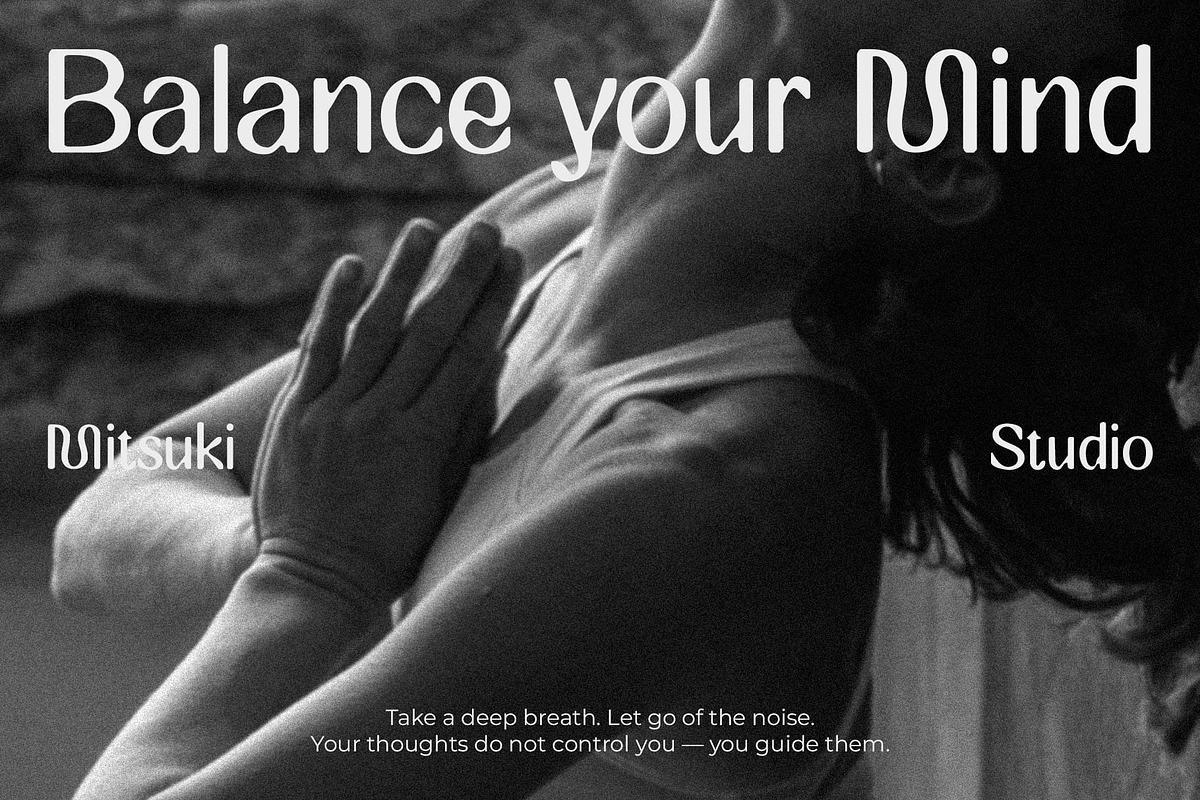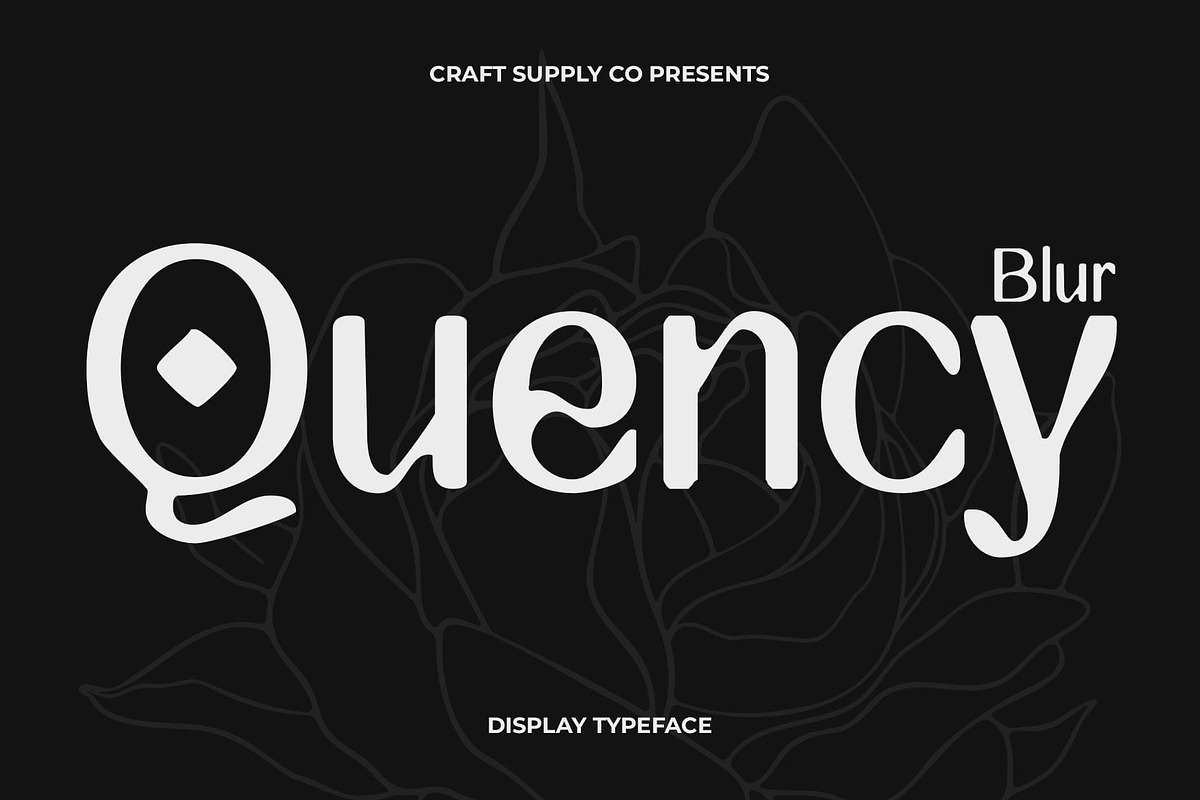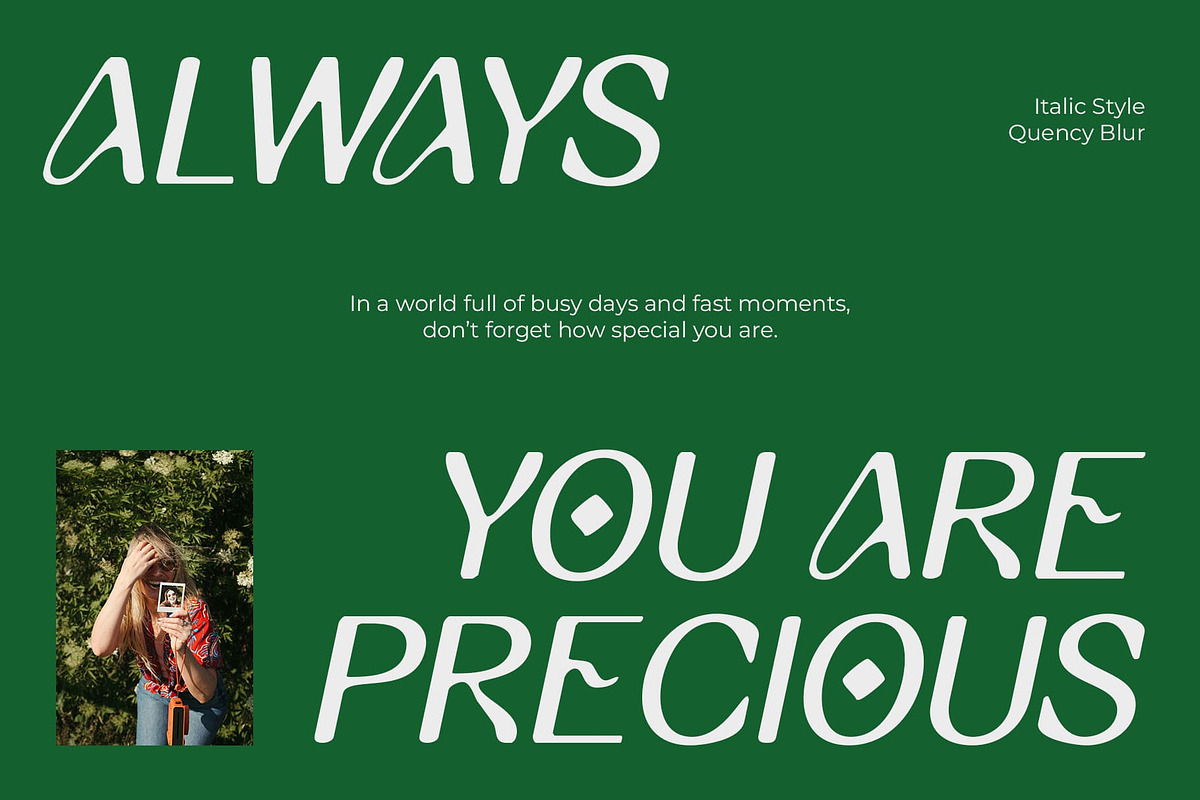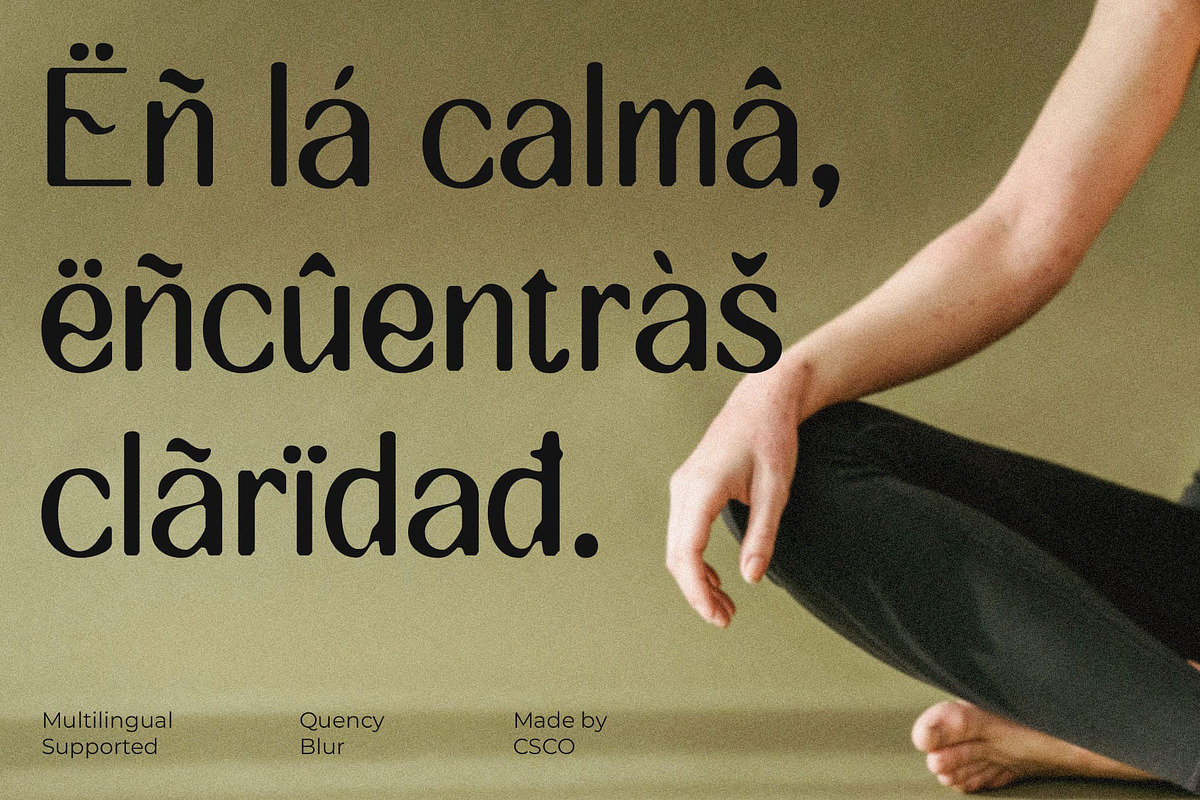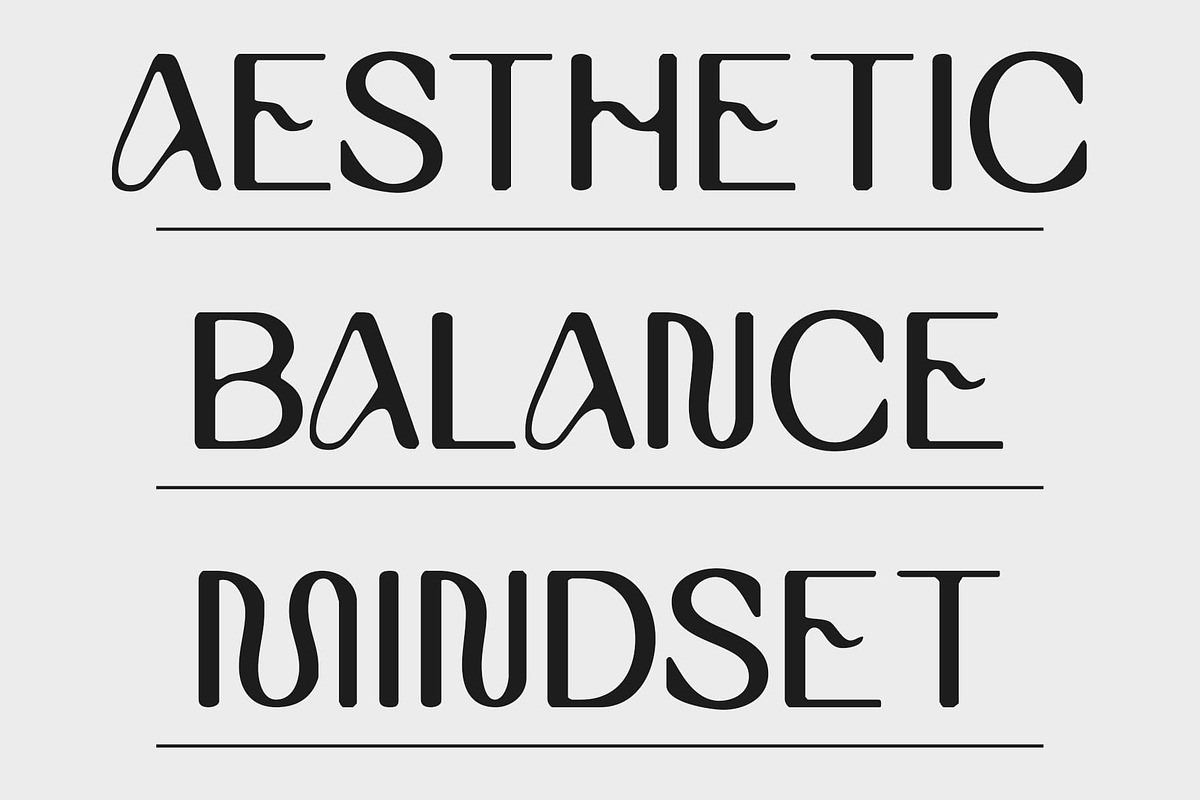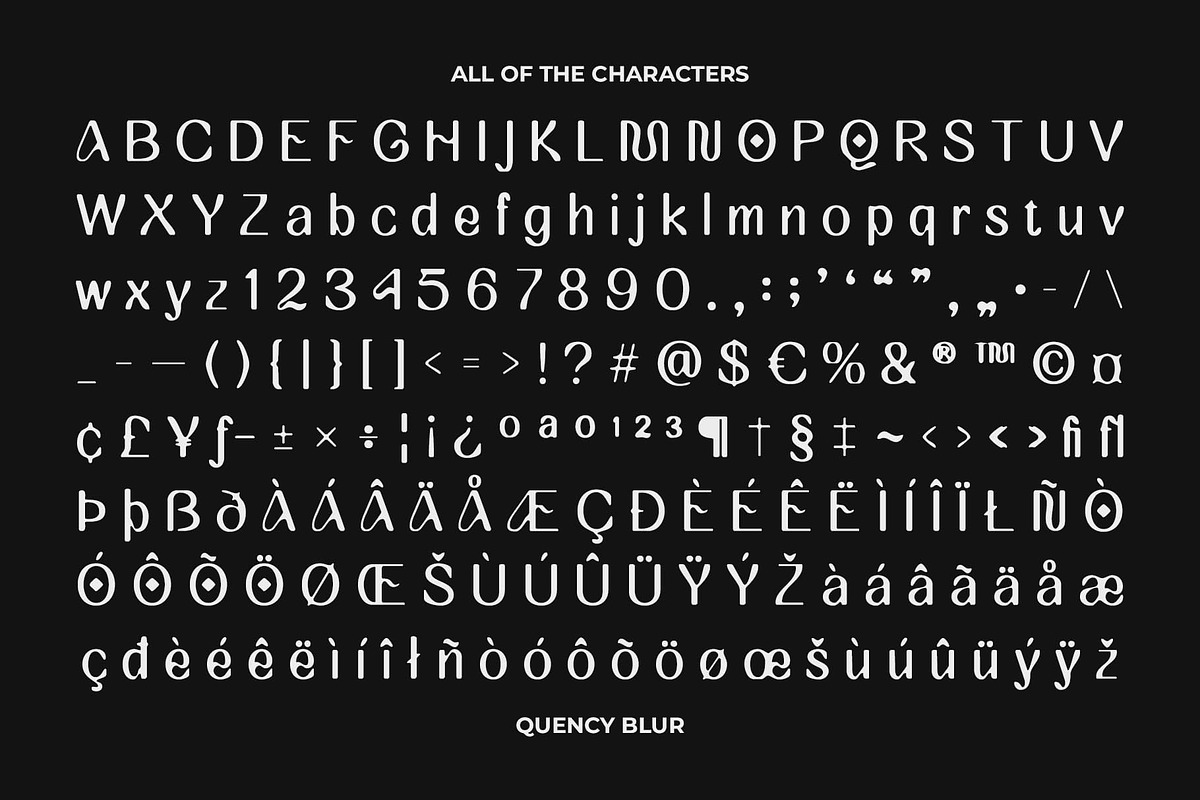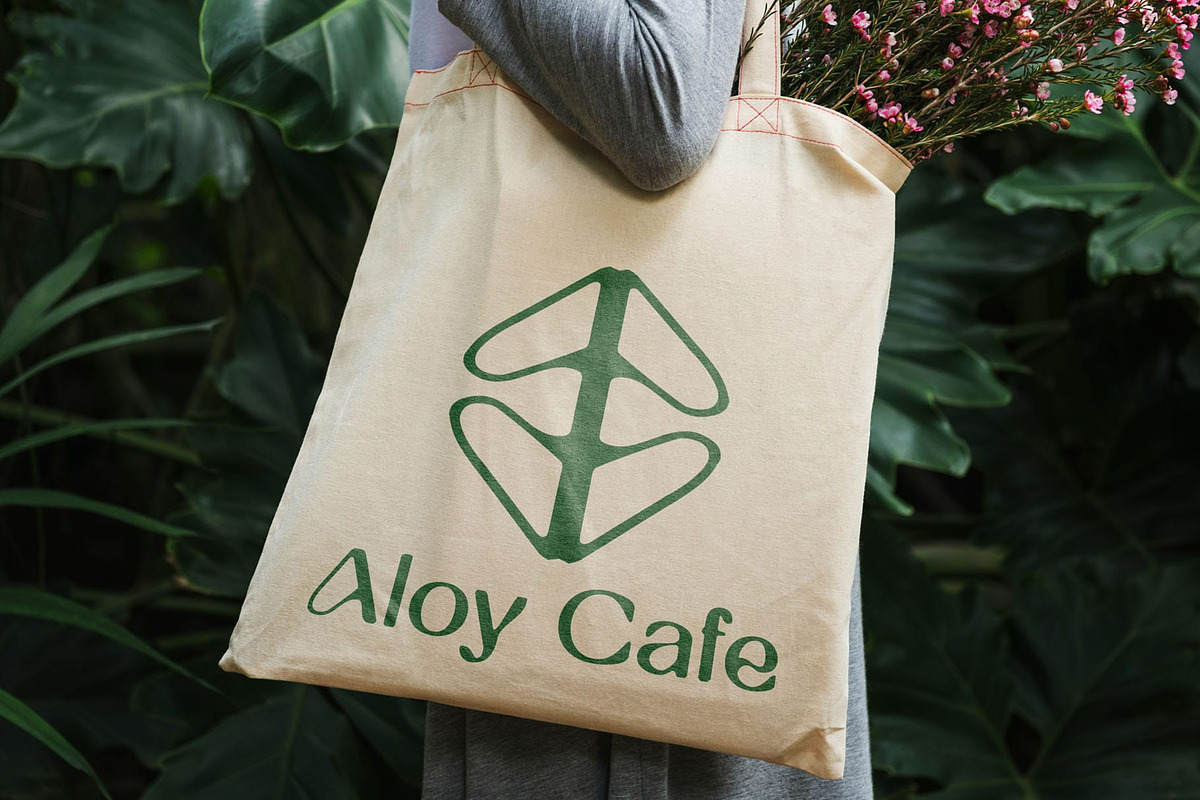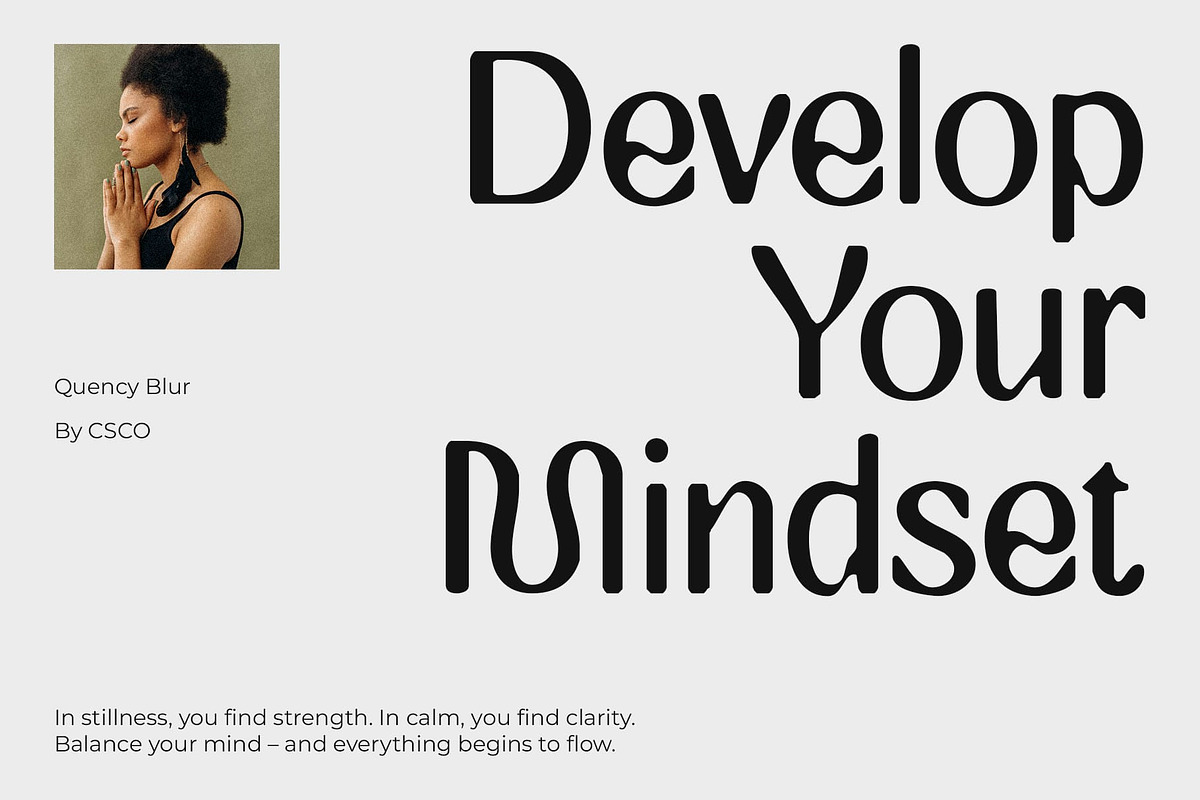
Quency Blur
Quency Blur Font – Modern Elegance with an Artistic Softness
A Fusion of Art Nouveau Grace and Contemporary Clarity Quency Blur is a modern sans serif font that effortlessly merges the flowing elegance of Art Nouveau with a clean, minimalist structure. Its graceful curves and refined proportions evoke sophistication and charm, offering a uniquely feminine and artistic impression suited to both modern and vintage-inspired design aesthetics.
Blur Effect for a Soft, Alluring Touch What sets Quency Blur apart is its subtle blur effect, which adds depth and visual softness to each letterform. This dreamy, softened edge gives the font a distinct character—enhancing its allure and making it ideal for designs that aim to appear delicate, expressive, and visually intriguing.
Perfect for Beauty, Editorial, and Elegant Creative Projects Whether you’re designing for high-end beauty products, fashion editorials, wellness branding, or artistic posters, Quency Blur brings a sense of elegance with a modern twist. Its blend of sophistication and subtle distortion creates a look that’s both polished and imaginative.
Refined, Feminine, and Distinctly Unique Quency Blur’s gentle flow and ethereal blur make it a standout choice for those seeking to communicate elegance, creativity, and uniqueness. It adds a luxurious softness to your typography while maintaining legibility and versatility across print and digital media.